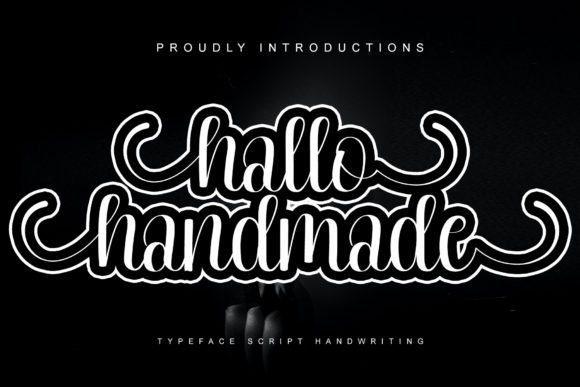
Discover the Magic of Handwritten Typography
Have you ever found yourself scribbling down a rough idea in the margins of a notebook, only to have it blossom into a beautiful design concept? For many creatives, it’s in these spontaneous moments that the most inspiring ideas are born. And it’s precisely this organic, handwritten feel that the Hallo Handmade Font embodies.
Designed to evoke the warmth and character of a handwritten script, Hallo Handmade Font is a beautiful and flowing typeface that’s perfect for adding a touch of elegance to any design project. Whether you’re crafting a wedding invitation, a branding campaign, or a social media graphic, this font is sure to captivate your audience with its timeless charm. With its versatility and beauty, the Hallo Handmade Font is a valuable addition to any designer’s toolkit.
Hallo Handmade Font Key Features
- Font Family: Hallo Handmade is a hand-drawn, script font family designed to add a personal touch to your designs.
- Character Set: The font family includes over 200 glyphs, covering a wide range of languages, including Latin, Cyrillic, and Greek.
- Unique Characteristics: Hallo Handmade features a unique, hand-drawn style with subtle imperfections and variations, giving your designs a personal touch.
Review of Hallo Handmade Font
I recently had the chance to work with the Hallo Handmade Font, and I must say, it’s a unique and charming addition to any design project. ✨ One of the things that works well is its playful, handwritten feel, which is perfect for creating a friendly and approachable atmosphere in branding and advertising materials.
Another aspect that I appreciate is the font’s versatility. It’s available in various weights, from light to bold, which makes it suitable for a wide range of applications, from body text to headings. ✨ Additionally, the font’s rounded edges and smooth lines give it a soft, elegant look that’s perfect for luxury brands or high-end products.
- ⚠️ The font’s readability can be a concern in certain contexts, particularly in smaller font sizes or when used for body text. This may require adjusting the font size or line spacing to ensure optimal legibility.
- ⚠️ The font’s cursive style can also make it difficult to read for some users, particularly those with visual impairments or dyslexia.
Overall, I think the Hallo Handmade Font is a great choice for designers who want to add a touch of personality to their projects. While it may have some limitations, its unique character and versatility make it a valuable addition to any design toolkit.
For the best results, use Hallo Handmade Font for titles, headings, and other large text elements.
It’s ideal for creating a whimsical, hand-drawn look in invitations, social media graphics, and other designs.
Alternatives to Hallo Handmade Font for Designers
Great Vibes Font is a modern, elegant script font perfect for creating a sophisticated and stylish look. It’s ideal for use in branding, logos, and typography-heavy designs. Compared to Hallo Handmade Font, Great Vibes has a more refined and polished feel, making it suitable for formal and professional applications.
Alex Brush Font is a beautiful, handwritten font that exudes warmth and personality. It’s perfect for use in creative, artistic, and emotive designs. Unlike Hallo Handmade Font, Alex Brush has a more whimsical and free-spirited feel, making it ideal for projects that require a touch of playfulness and humor.
Dancing Script Font is a lively, cursive font that’s perfect for creating eye-catching and attention-grabbing designs. It’s ideal for use in headings, titles, and other text elements that require a sense of drama and flair. Compared to Hallo Handmade Font, Dancing Script has a more energetic and dynamic feel, making it suitable for projects that require a sense of movement and action.